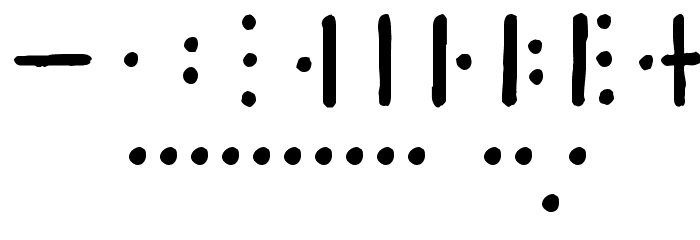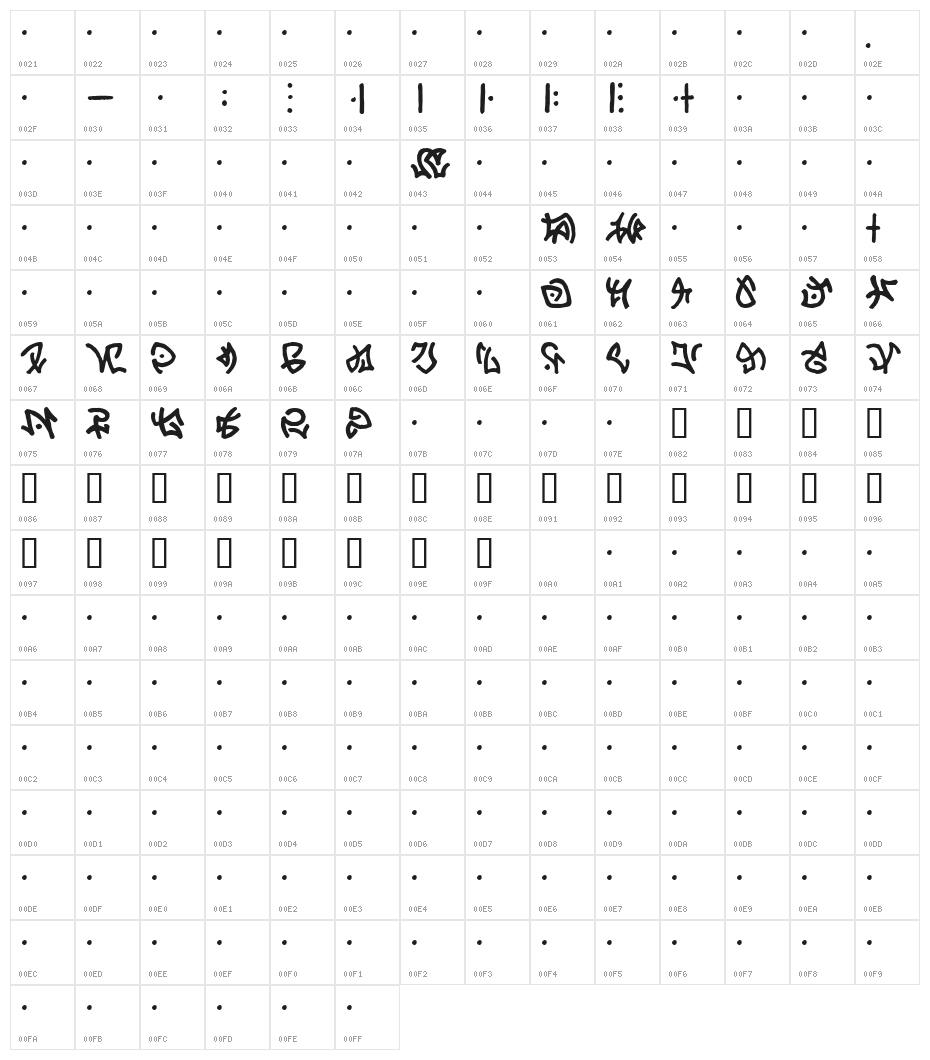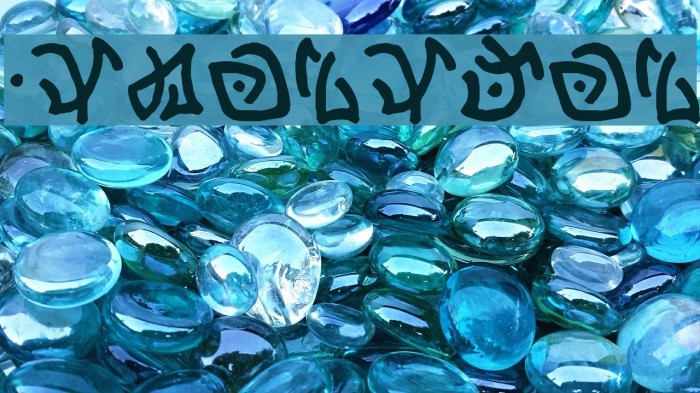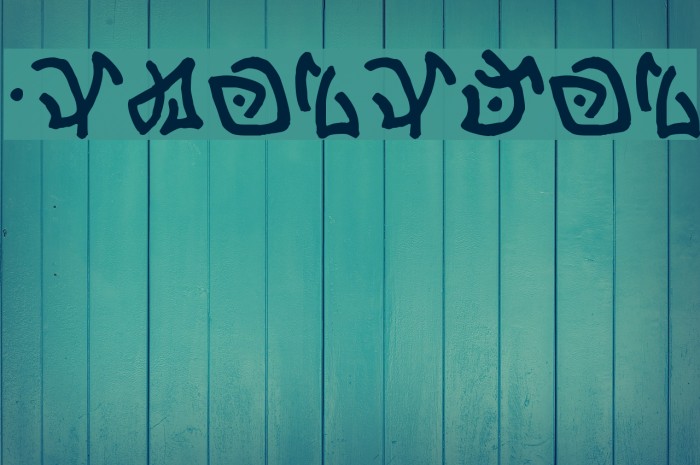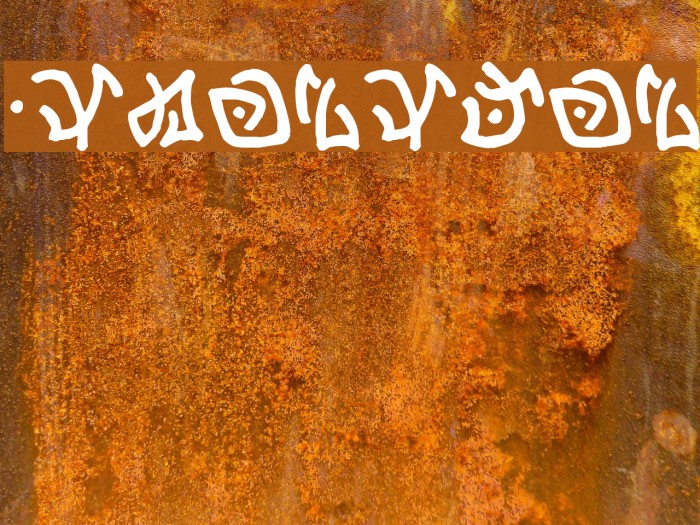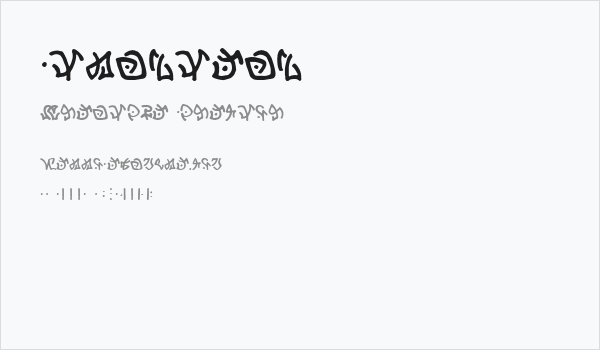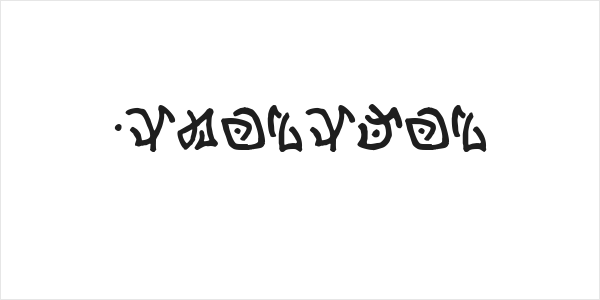
Atlantean Font
Atlantean Description
A highly decorative, fantasy-inspired script with intricate, angular letterforms and unique symbols, evoking an ancient or mystical aesthetic. The characters are bold, irregular, and stylized, with a hand-drawn appearance and varying line thickness. Punctuation and numerals are represented with dots and lines, enhancing the cryptic feel.
| Overall Style | Decorative, Fantasy, Ancient |
| Use Case | Logos, Titles, Themed Graphics, Posters |
| Proposed Projects | Fantasy games, movie titles, treasure maps, themed posters, fictional languages, escape room props. |